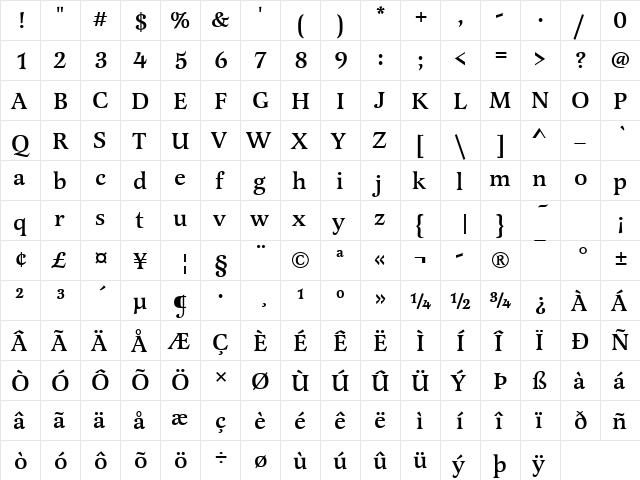
Latienne Becker Med Regular
Design Context for Latienne Becker Med Typeface
Latienne Becker Med takes a measured approach to typography — its balanced proportions and neutral character make it a reliable workhorse for both digital and print work.